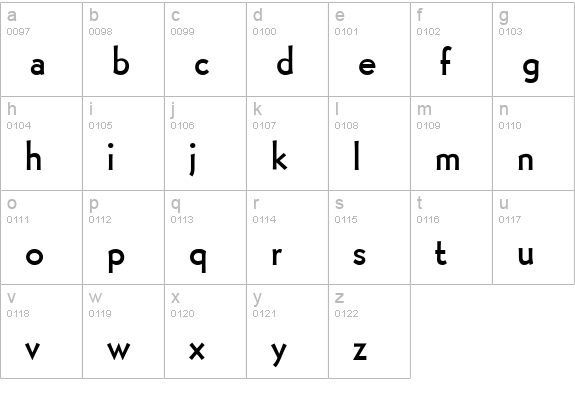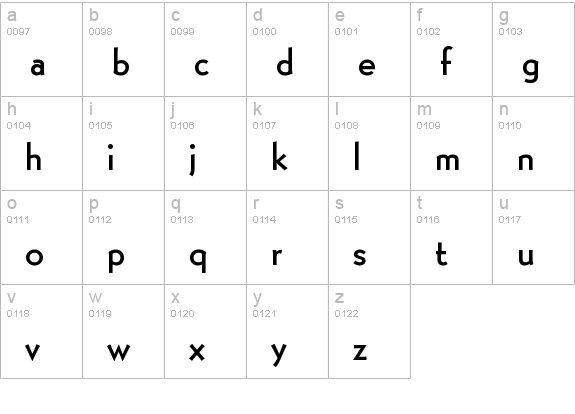
Bernhard Gothic Medium is a balanced, medium-weight variant in the Bernhard typeface family \xE2\x80\x94 well suited to sub-headlines, navigation, and balanced editorial work.
Bernhard Gothic Medium font is a versatile and elegant typeface that exudes sophistication and modernity. With its clean lines and balanced proportions, this font is perfect for a wide range of design projects, from branding to editorial design. The sleek and timeless aesthetic of Bernhard Gothic Medium makes it a popular choice among designers looking to add a touch of refinement to their work. What sets Bernhard Gothic Medium apart is its seamless blend of classic and contemporary elements, making it a truly unique typeface that stands out from the crowd. Whether used for headlines, body text, or logos, this font delivers a polished and professional look that is sure to make a lasting impression. And the best part? Bernhard Gothic Medium is available for free download at FontsMarket.com. So, whether you're a seasoned designer or just starting out, you can easily access this exceptional font and incorporate it into your next project with ease. Elevate your design game with Bernhard Gothic Medium today!